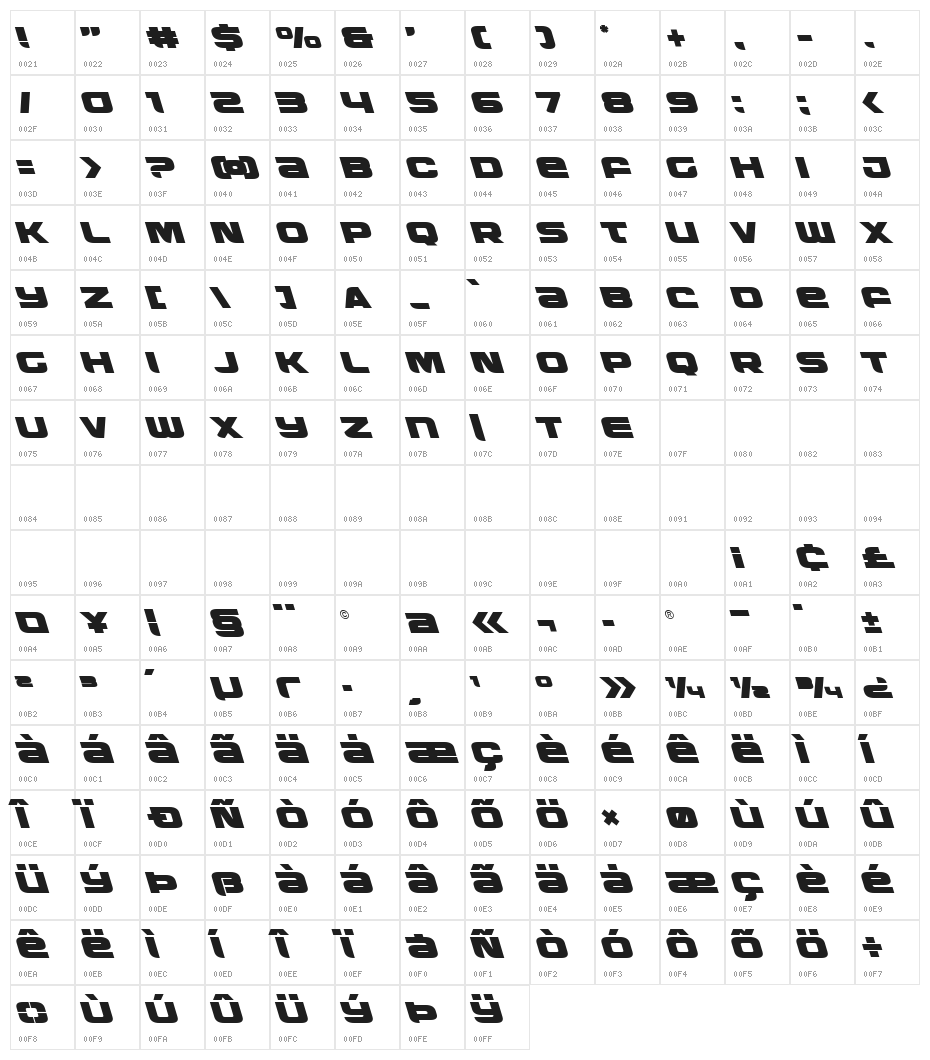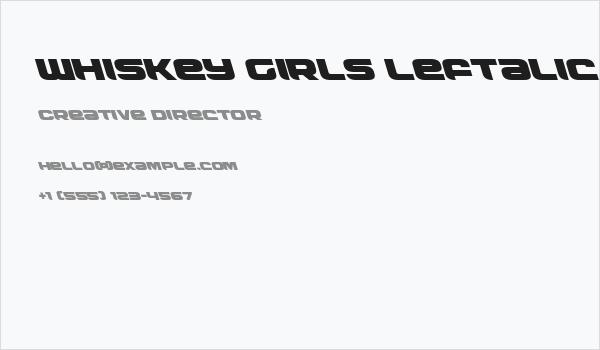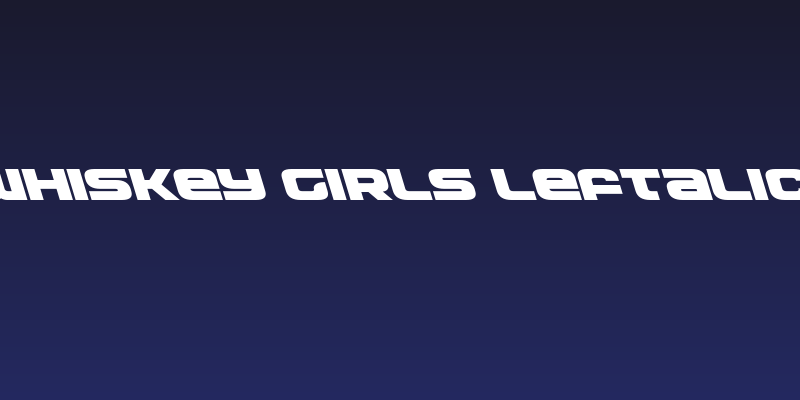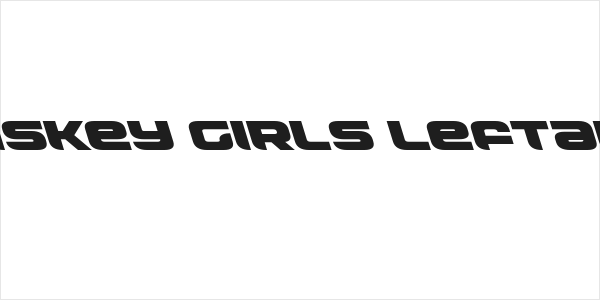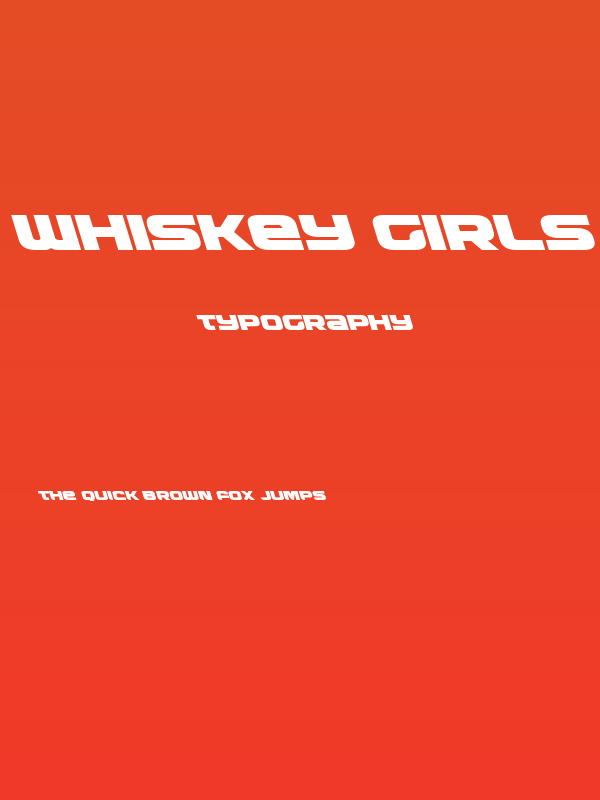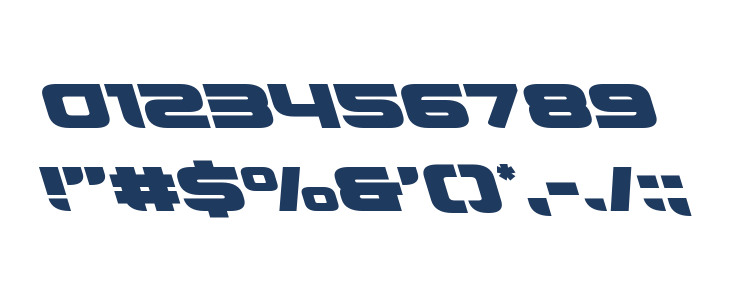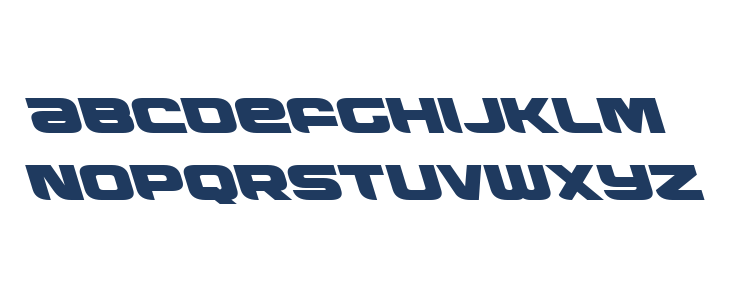
Whiskey Girls Leftalic Font
Whiskey Girls Leftalic Description
This font features a bold, italicized style with a modern and dynamic appearance. The characters are slightly slanted, giving a sense of motion and energy. The strokes are thick and consistent, providing a strong visual impact. The design includes unique angular cuts and sharp edges, particularly noticeable in letters like 'A', 'K', and 'V'. The numbers and special characters maintain the same bold and slanted style, ensuring uniformity across all glyphs. This font is ideal for projects that require a strong, eye-catching typeface with a contemporary flair.